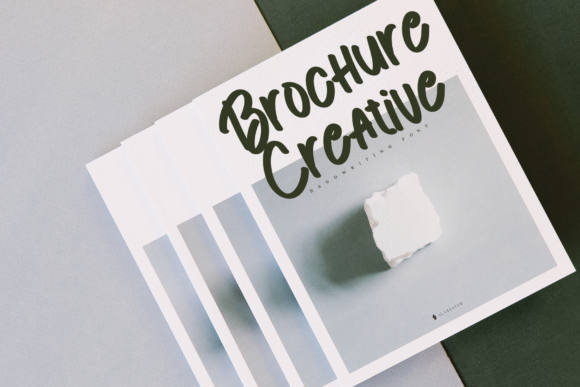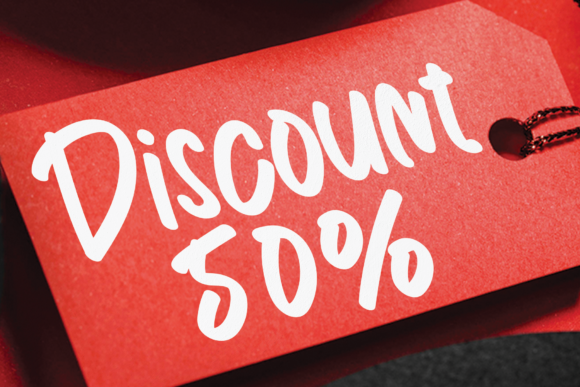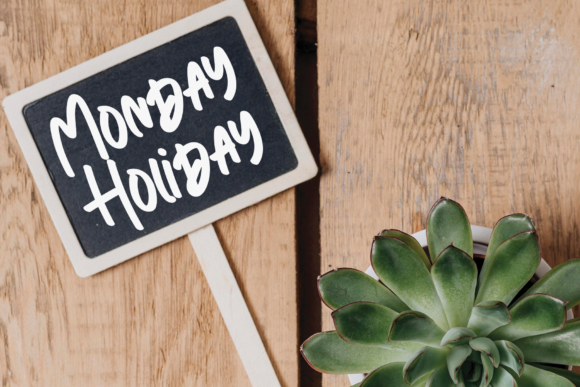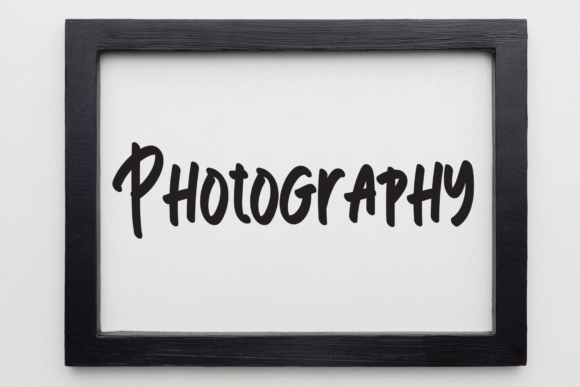
Hello to Handmade Font
About Hello to Handmade Font
Hello to Handmade is a creative, adaptable and trendy handwritten font. No matter the topic, this font will be an incredible asset to your fonts’ library, as it has the potential to elevate any creation.